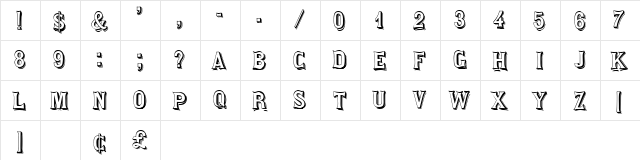
Saloon Display Caps SSi Regular
Design Context for Saloon Display Caps SSi Typeface
Saloon Display Caps SSi taps into classic Western woodtype traditions — bold, characterful, and impossible to ignore.
A natural fit for craft spirits, ranch branding, rodeo events, and Americana-inspired design work.
Font Pairing: Combine Saloon Display Caps SSi with a simple slab or neutral sans — period-accurate companions reinforce the vintage feel without competing for attention.
Pro Tip: Use Saloon Display Caps SSi for short, impactful bursts of text — it shines in poster headlines and product names rather than extended copy.